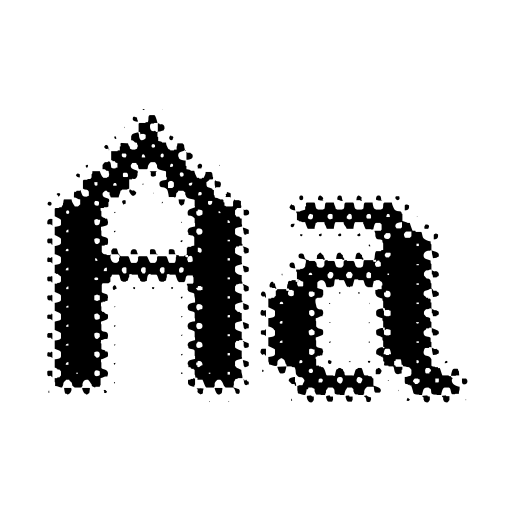
Bad Cargo 2.0 is a distressed, monospace-style font with a worn, glitchy texture that gives it a rugged, industrial feel. Its irregular edges and uneven stroke breaks create a sense of raw, vintage machinery or digital decay, making it perfect for designs that want to convey grit, technology, or a post-apocalyptic vibe. This font works well for edgy branding, poster headlines, and creative projects that need a strong, unconventional impact.
Bad Cargo 2.0 Font